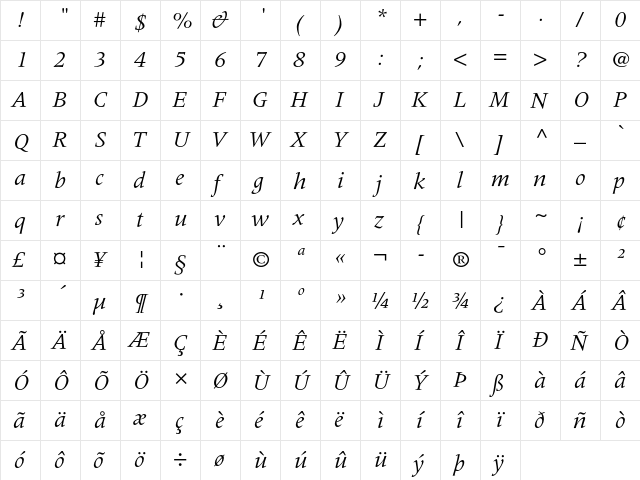
Meridien Italic
Design Context for Meridien Typeface
Meridien is a composed and adaptable typeface that performs quietly and consistently across a wide range of design contexts. The slanted form adds forward momentum and visual energy.
Pro Tip: Try Meridien for annotation and caption copy alongside an upright companion — the contrast in angle creates a dynamic but ordered typographic system.